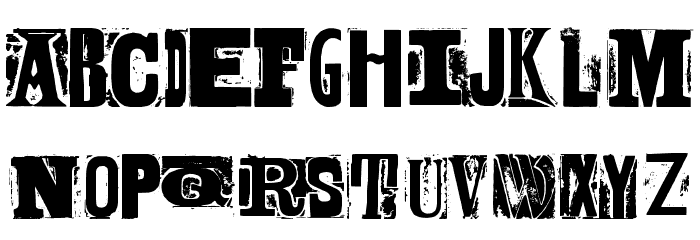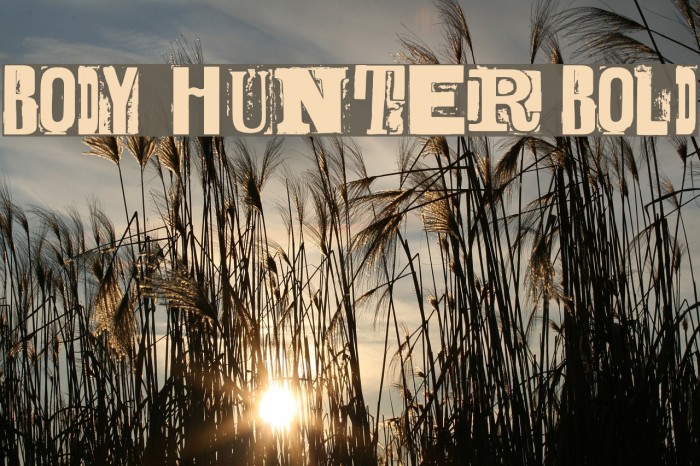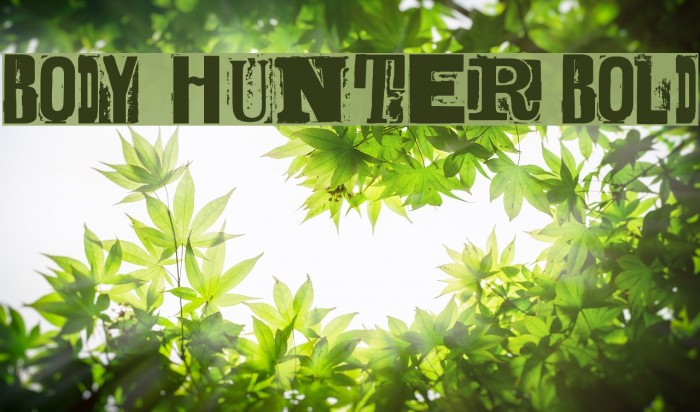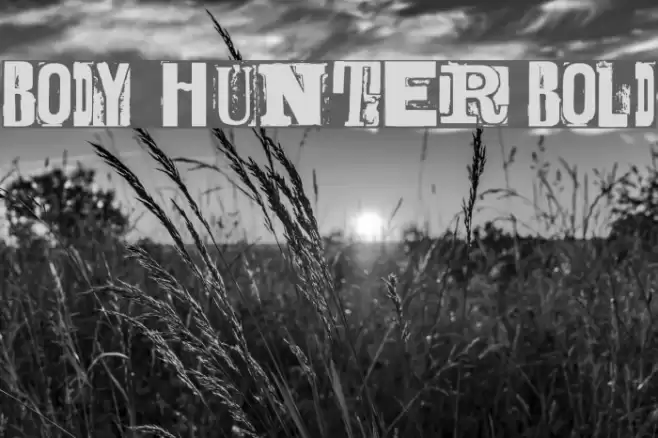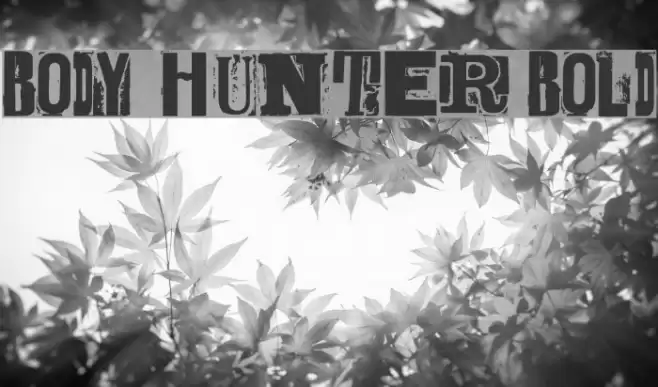
BODY HUNTER Bold Font
This font features a bold and distressed style, characterized by its rough, textured appearance that gives it a grunge or worn-out look. The uppercase letters are prominent and impactful, with each character having unique distressed marks that add to its rugged aesthetic. The font's design is highly decorative, making it stand out with its bold strokes and uneven edges. It conveys a sense of edginess and rebellion, suitable for projects that require a strong visual impact. The font's unique style makes it ideal for creative and artistic applications.
A bold, distressed font with a grunge aesthetic and strong visual impact.
- Proposed Projects: Ideal for music album covers, posters, branding for edgy products, and creative design projects.
- Overall Style: Grunge, Edgy, Artistic